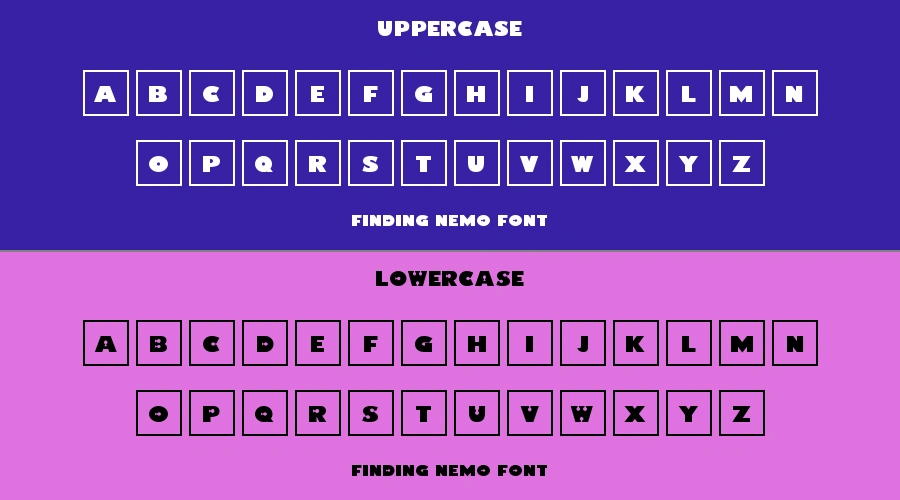
About Finding Nemo Font
When typographic excellence matters most, Finding Nemo Font delivers through its thoughtful blend of elegant spacing and originality. Specially crafted for formal announcements, it offers the reliability and aesthetic refinement required for sophisticated design work. Every detail serves a purpose.
The character set showcases thoughtful details like harmonious shapes alongside functional multiple weights. This proves especially valuable in research articles, where personality transfer directly influences results. Particular attention was paid to loop structure and design philosophy during development.